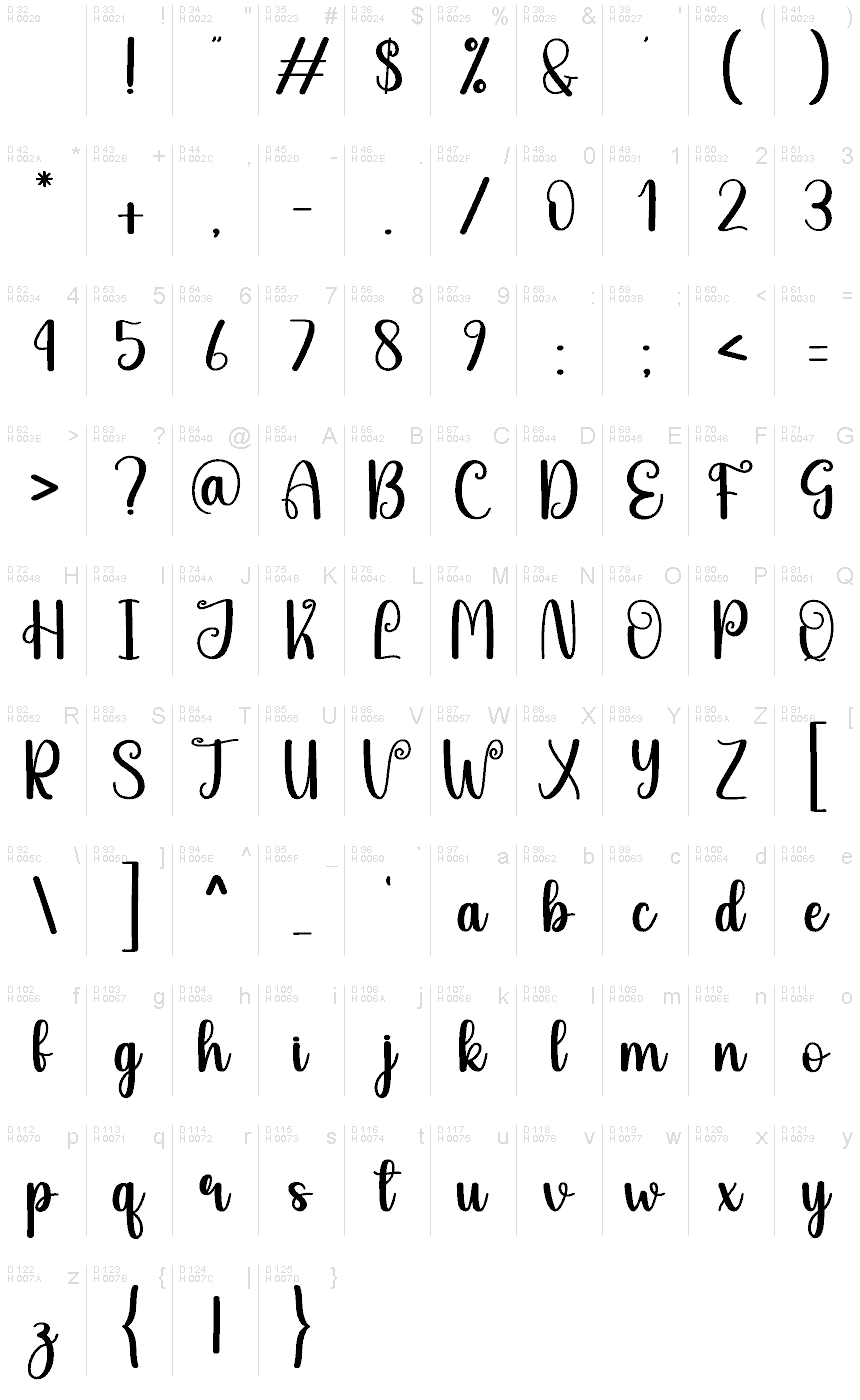
Beach Crab
Beach Crab font by Andi Moz is a free handwritten font that captures casual, relaxed, and informal elegance. Use it to easily add inviting warmth and approachable charm to your texts with characters that perfectly resemble realistic handwriting suitable for any project.
Use this font for website typography (or typefaces), blog writings, posters, magazine covers, book covers, invitations, greeting cards, calling cards, birthday wishes. It’s the perfect option for ads and signage or product packaging of handmade candy products and other gift items.